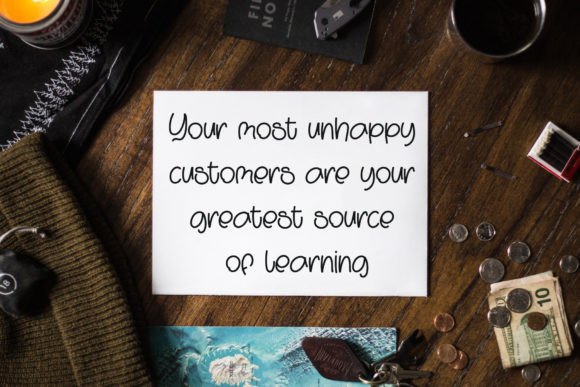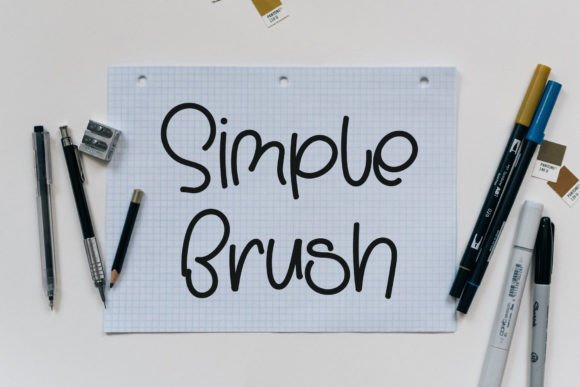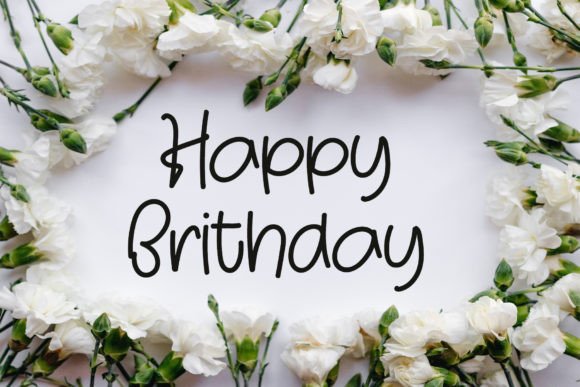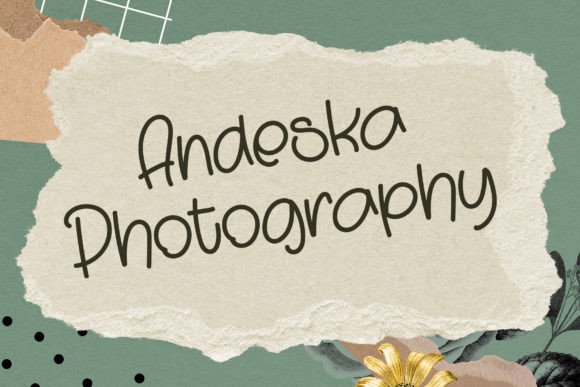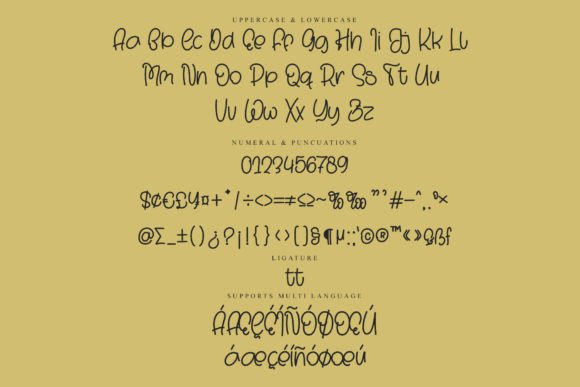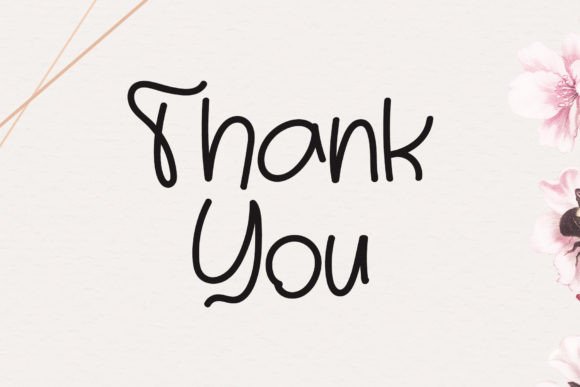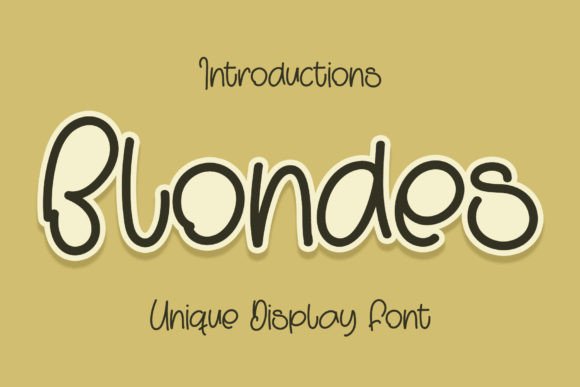
Introducing Blondes Font: The Perfect Handwritten Style for Magazines and Crafts
Are you a designer, crafter, or DIY enthusiast looking for a beautiful and unique font to elevate your creative projects? Look no further than Blondes Font, a stunning handwritten font that’s perfect for magazines, crafts, and more. In this article, we’ll dive into the world of Blondes Font, exploring its features, benefits, and uses, as well as provide tips on how to make the most of this gorgeous font.
What is Blondes Font?
Blondes Font is a carefully crafted handwritten font that’s designed to add a touch of elegance and sophistication to your designs. With its flowing lines, delicate curves, and whimsical feel, this font is sure to capture the hearts of designers, crafters, and DIY enthusiasts alike. Whether you’re working on a magazine, a craft project, or a personal design endeavor, Blondes Font is the perfect choice for adding a personal touch to your work.
Key Features of Blondes Font
- Handwritten style: Blondes Font boasts a beautiful, handwritten style that’s perfect for adding a personal touch to your designs.
- Unique character set: With a wide range of characters, including letters, numbers, and punctuation marks, Blondes Font has everything you need to create stunning designs.
- Easy to read: Despite its whimsical feel, Blondes Font is surprisingly easy to read, making it perfect for use in magazines, blogs, and other text-heavy designs.
- Versatile: Blondes Font can be used for a wide range of projects, from crafting and DIY to graphic design and publishing.
Benefits of Using Blondes Font
So why choose Blondes Font for your next project? Here are just a few benefits of using this gorgeous font:
- Adds a personal touch: With its handwritten style, Blondes Font adds a personal touch to your designs that’s sure to set them apart from the crowd.
- Enhances creativity: Blondes Font is the perfect choice for crafters and DIY enthusiasts who want to add a creative twist to their projects.
- Perfect for magazines and publishing: With its elegant feel and easy-to-read design, Blondes Font is an excellent choice for use in magazines, blogs, and other text-heavy designs.
How to Use Blondes Font
Ready to get started with Blondes Font? Here are a few tips for making the most of this gorgeous font:
- Experiment with different sizes: Blondes Font looks great in a range of sizes, from large headings to smaller body text.
- Pair with other fonts: Try pairing Blondes Font with other fonts to create a unique and eye-catching design.
- Use for crafting and DIY projects: Blondes Font is perfect for use in crafting and DIY projects, such as making cards, gift tags, and other handmade items.